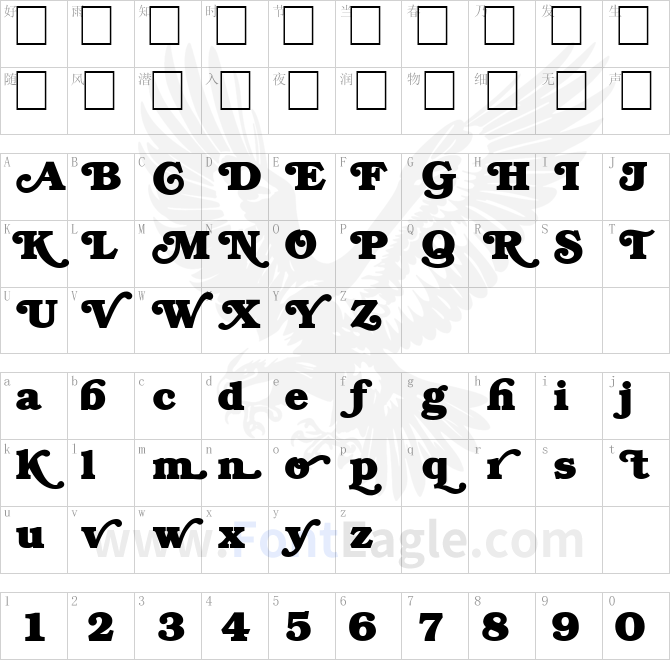
FZ-JAZZY-47 is a great font, widely used in graphic design, single-page menu design, poster design and other fields, and is deeply loved by designers.FZ-JAZZY-47 download.